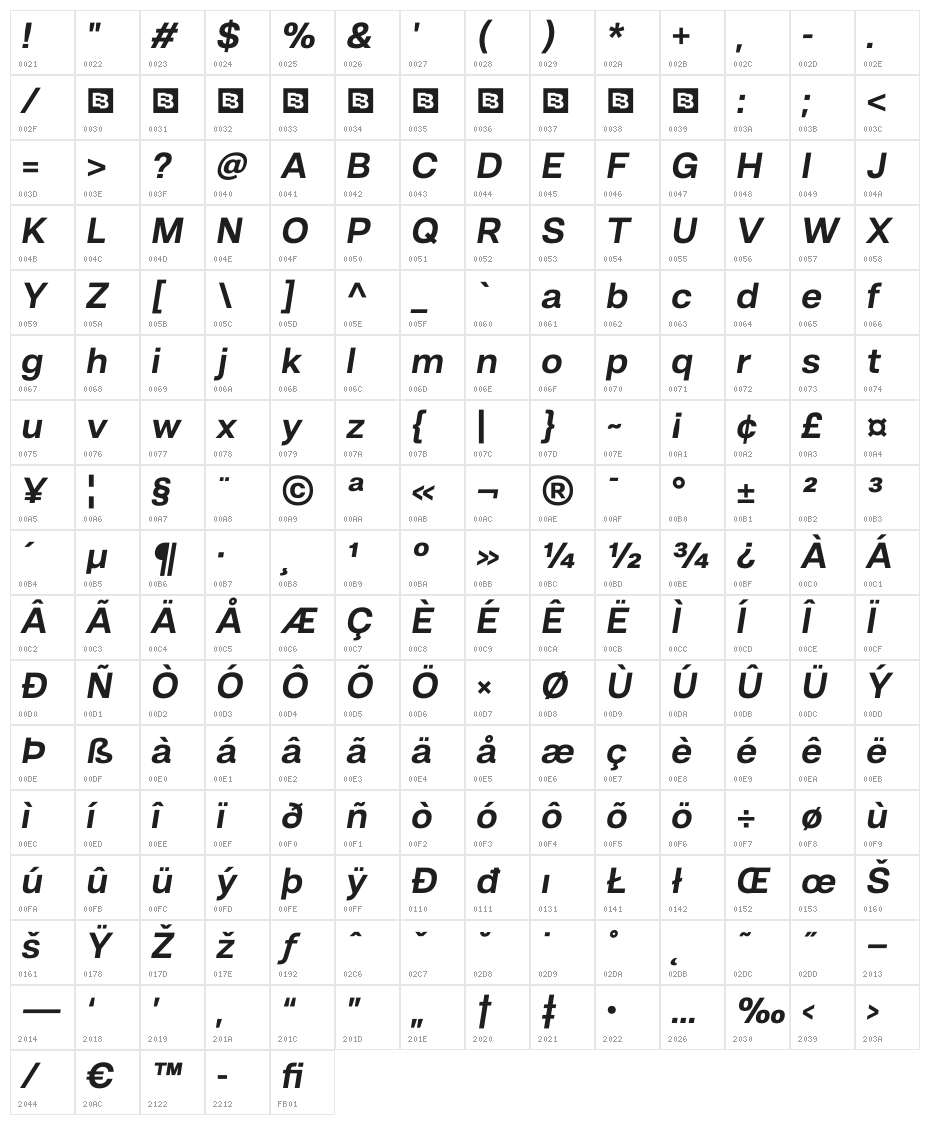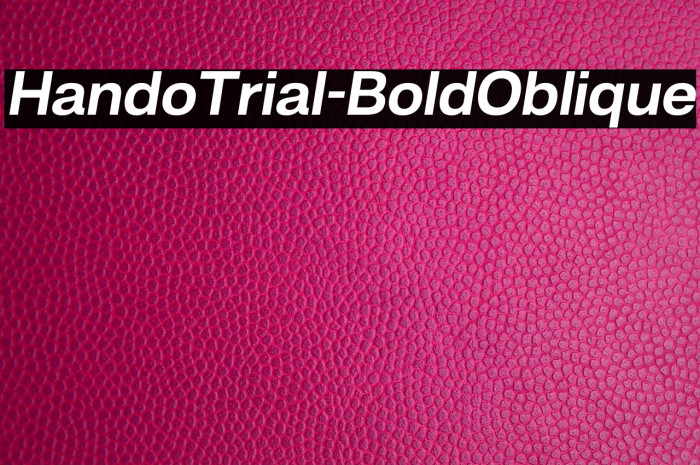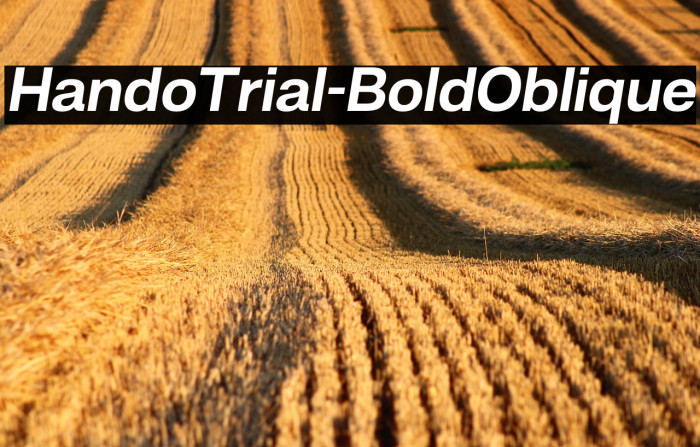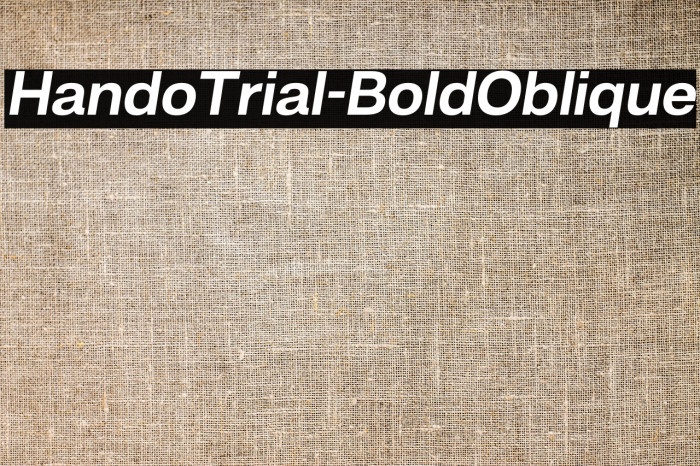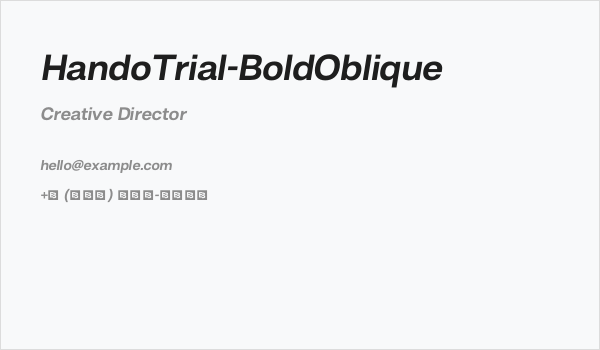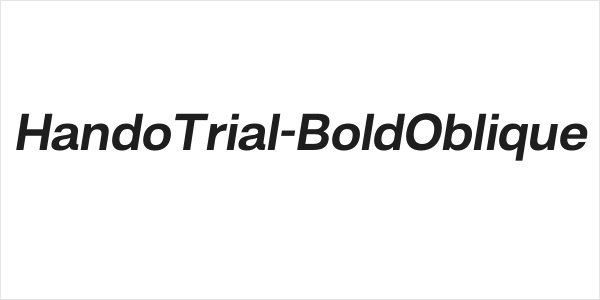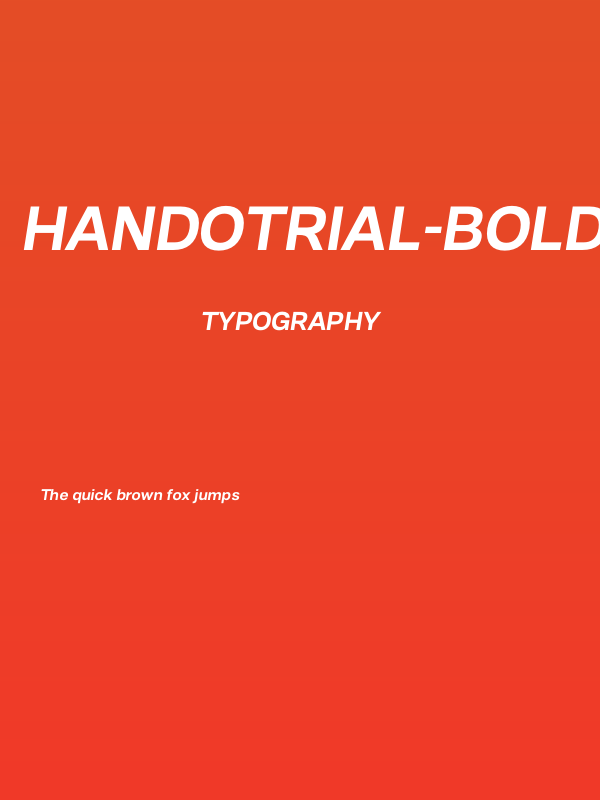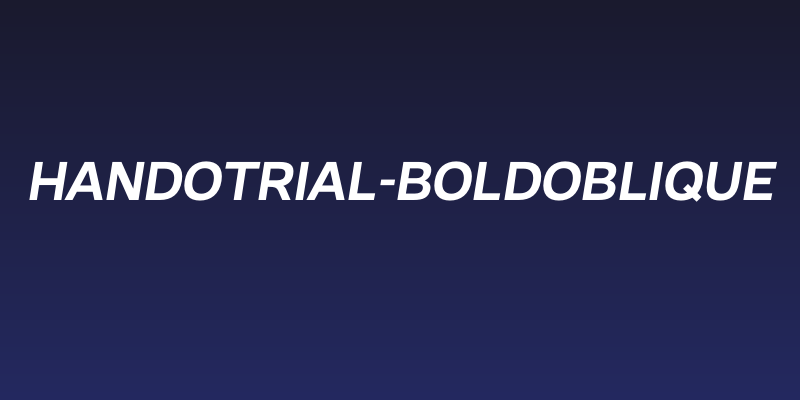
HandoTrial-BoldOblique Font
HandoTrial-BoldOblique Description
This font exhibits a bold and oblique style, characterized by its strong, slanted letterforms that convey a sense of dynamism and modernity. The uppercase and lowercase letters maintain a consistent slant, enhancing the font's cohesive appearance. The numerals and special characters are designed to match the boldness and slant of the alphabet, ensuring uniformity across all characters. The font's design is clean and sans-serif, making it suitable for contemporary applications where clarity and impact are essential. Its bold weight and italicized style make it ideal for attention-grabbing headlines and branding materials.
| Proposed Projects | Ideal for branding, advertising, headlines, and any design project requiring a modern and impactful typeface. |